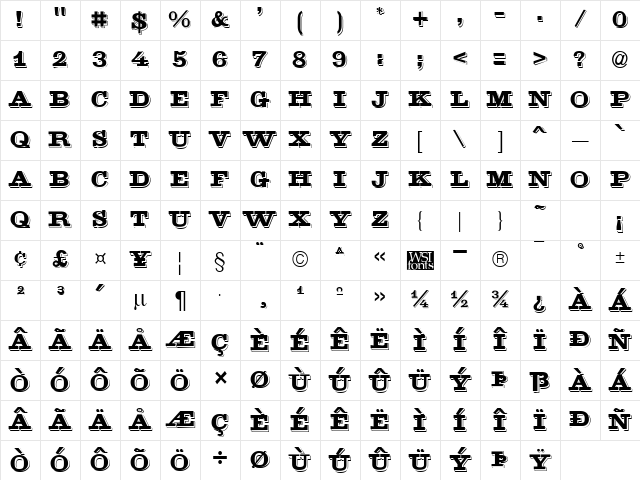
Goldstone Regular
Complete Goldstone Regular glyph index. Displaying only characters natively supported by Goldstone Regular font.
Design Context for Goldstone
Goldstone is a composed and adaptable typeface that performs quietly and consistently across a wide range of design contexts.